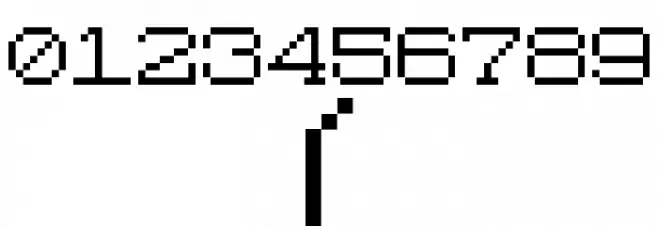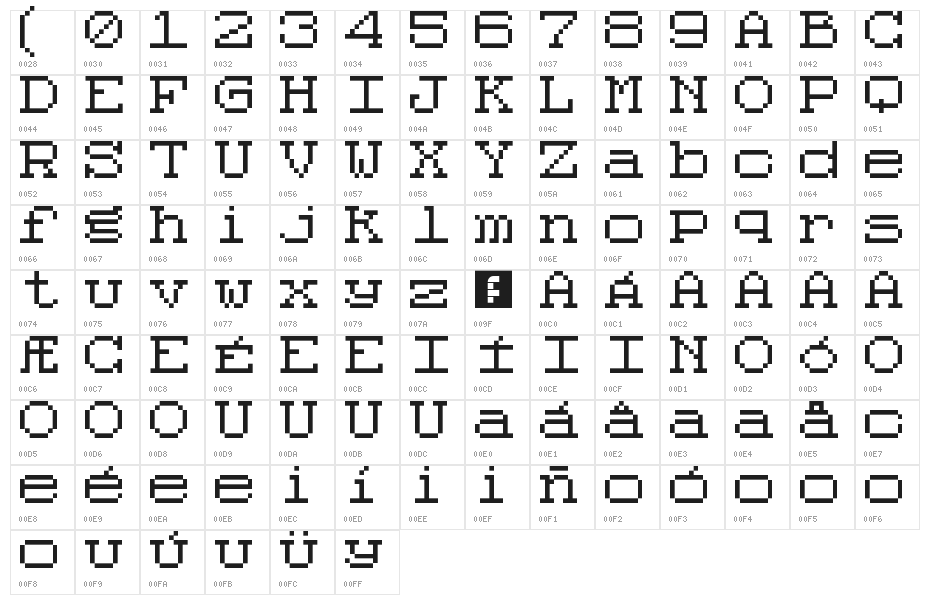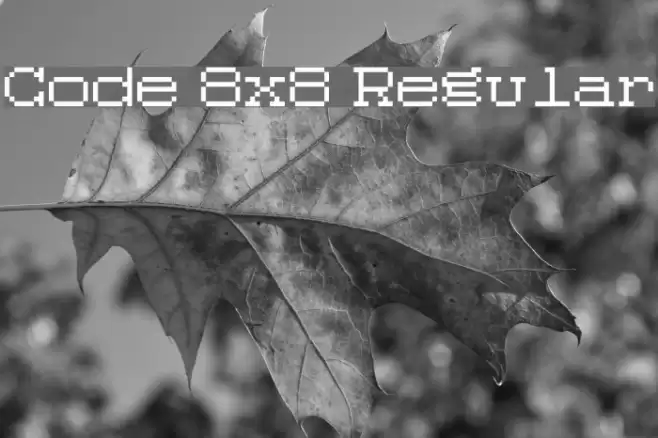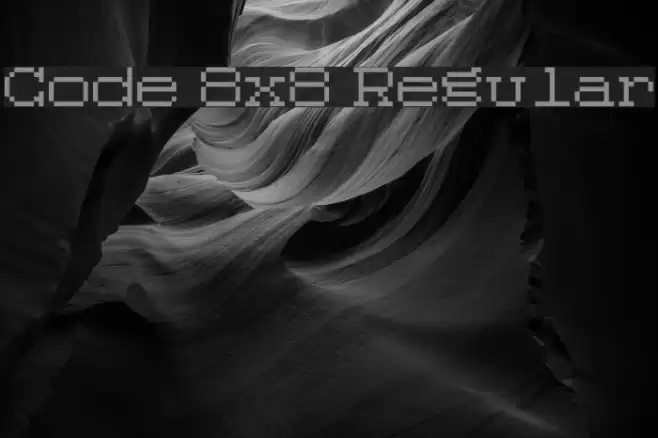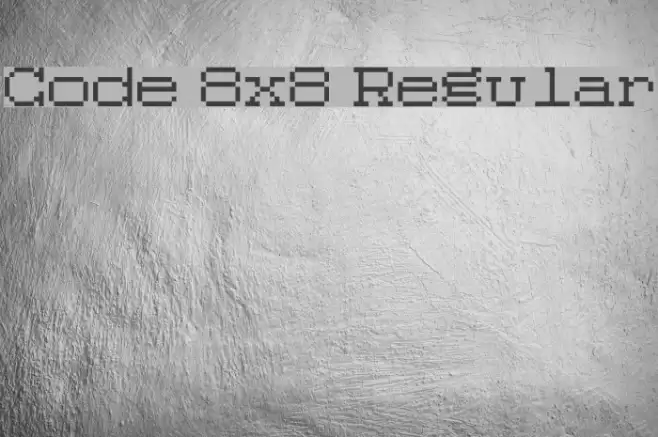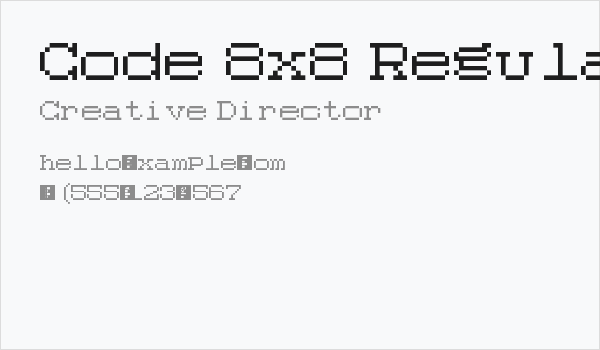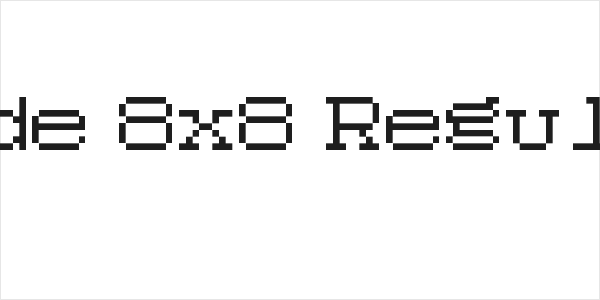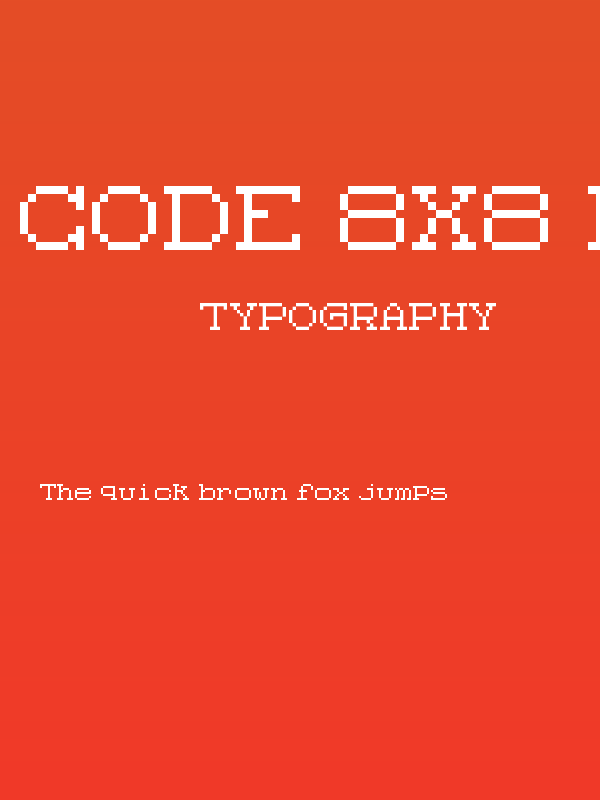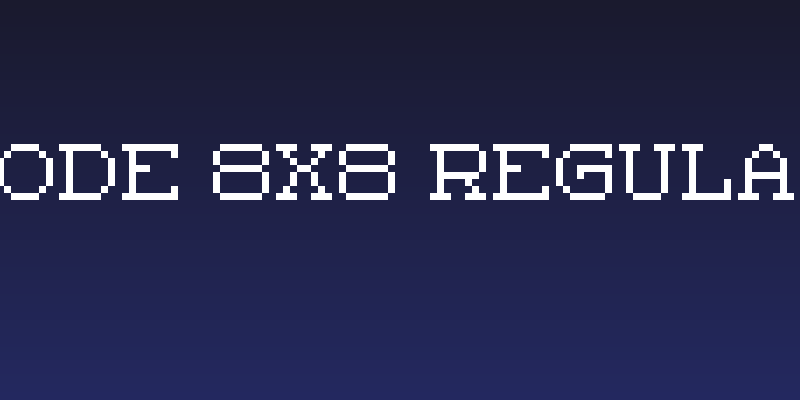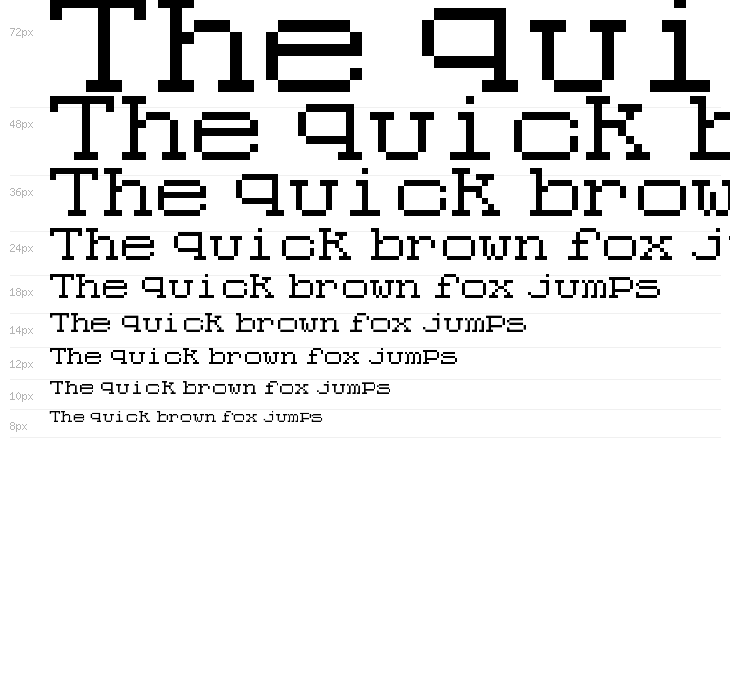
Code 8x8 Regular Font
Code 8x8 Regular Description
This font features a pixelated, monospaced design reminiscent of classic 8-bit computer and video game graphics. Each character is constructed with a grid-like pattern, giving it a distinctly retro and digital appearance. The uniformity in character width and height ensures consistent alignment, making it ideal for coding and digital displays. The font's simplicity and clarity make it highly legible, even at smaller sizes. Its nostalgic style evokes a sense of vintage computing, perfect for projects that aim to capture the essence of early digital aesthetics.
| Use Case | Digital displays, Coding, Retro games |
| Proposed Projects | Ideal for retro video games, coding environments, digital art projects, and any design requiring a vintage computer aesthetic. |